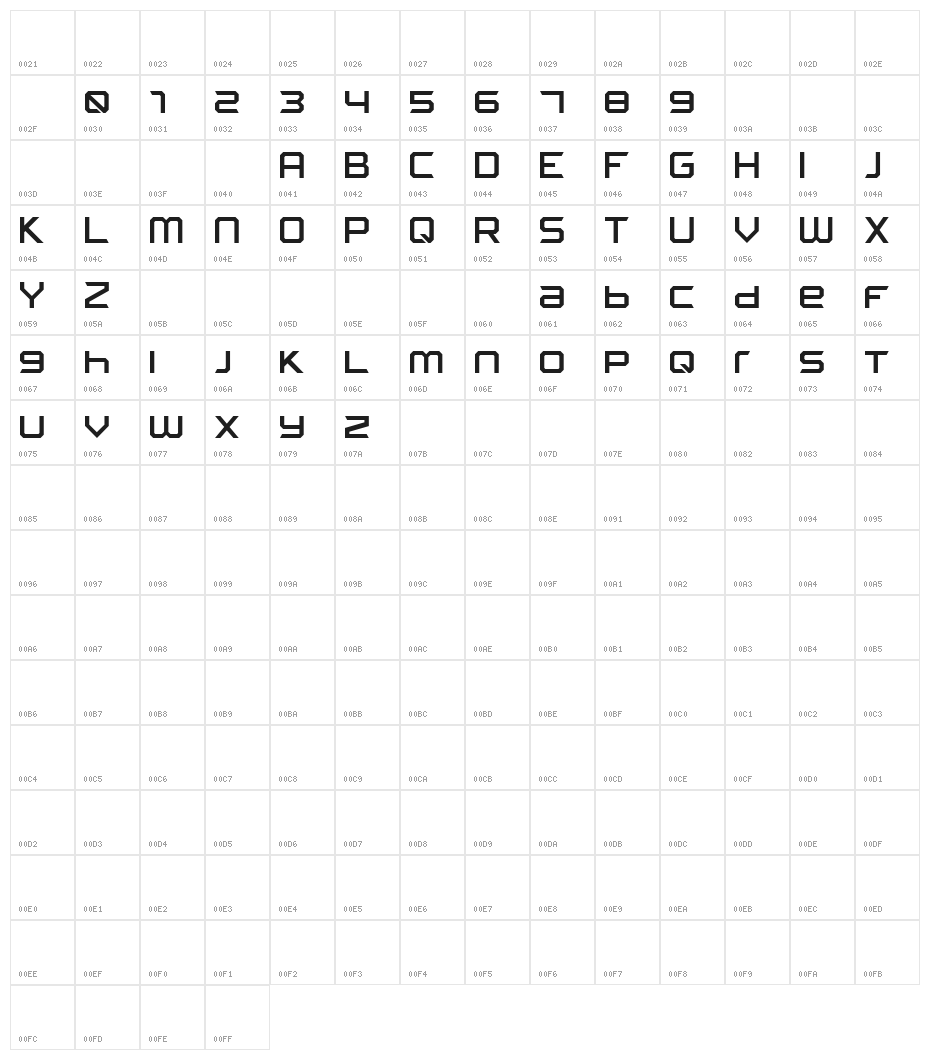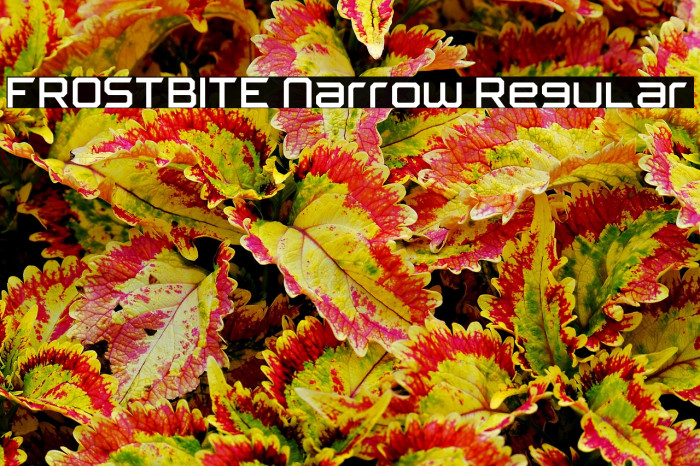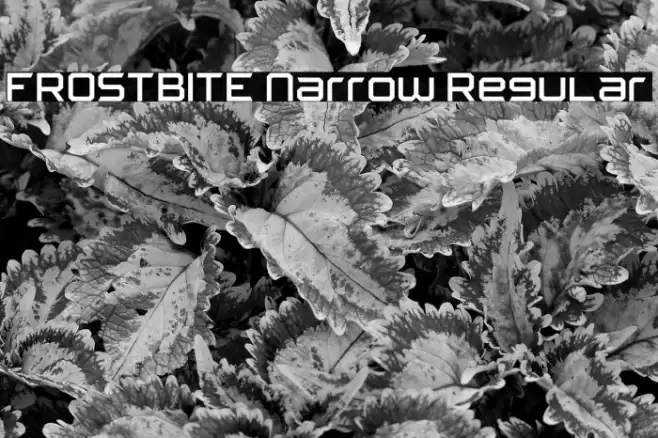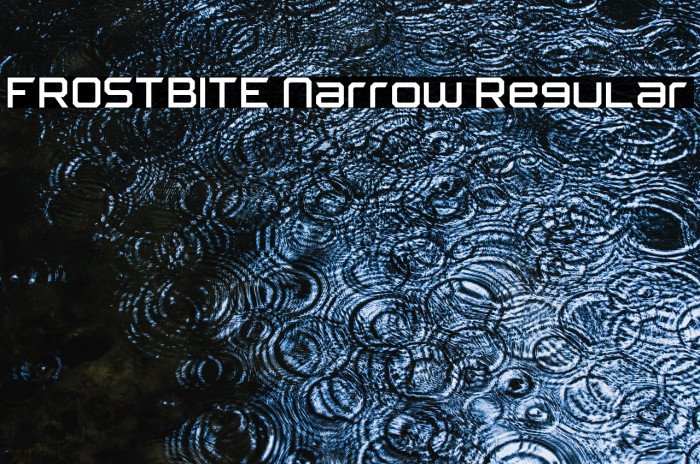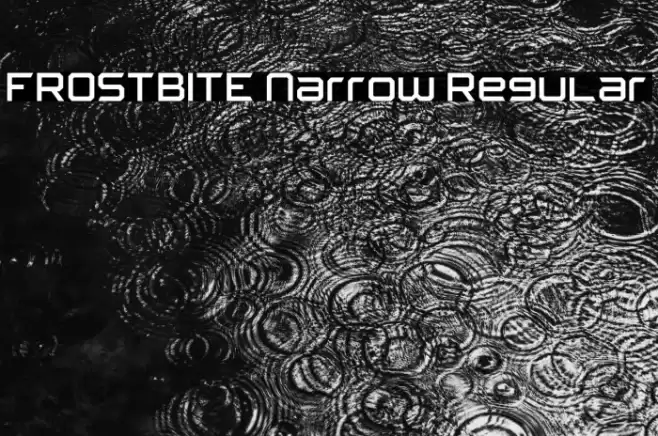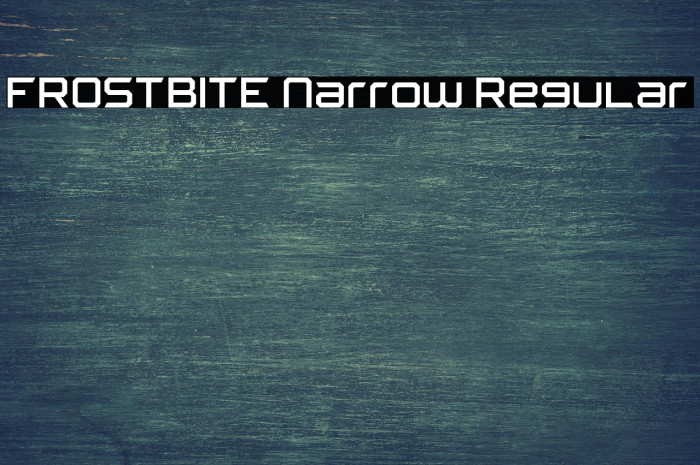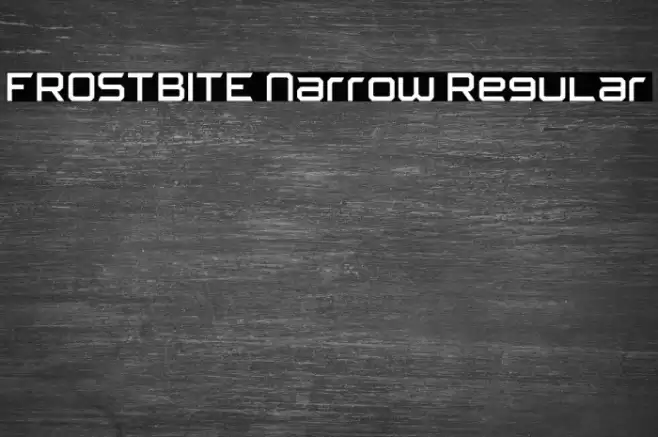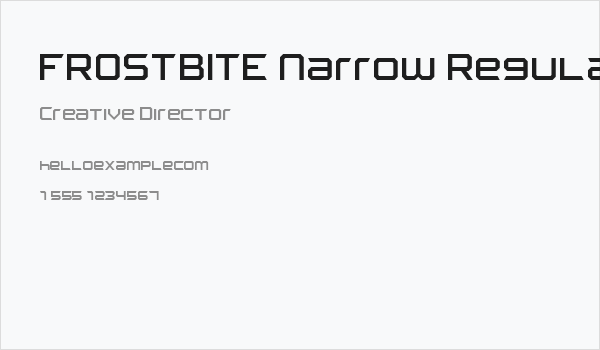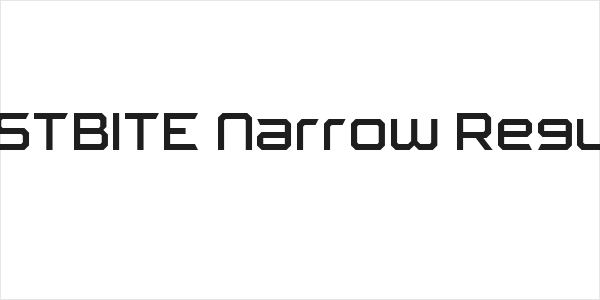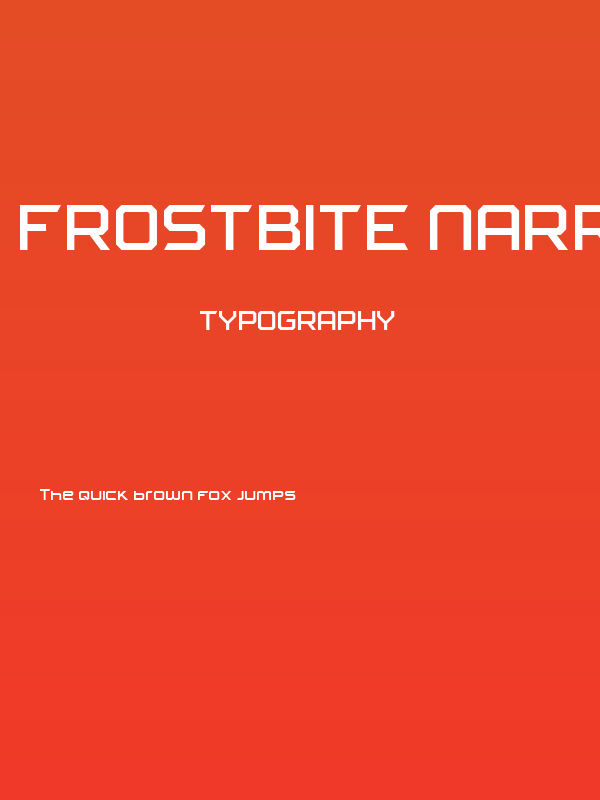
FROSTBITE Narrow Regular Font
FROSTBITE Narrow Regular Description
This font features a geometric and angular design, characterized by its sharp edges and futuristic appearance. The uppercase and lowercase letters maintain a consistent height, giving it a uniform look. The numerals and special characters follow the same angular style, making the font cohesive throughout. Its narrow structure and bold lines make it stand out, while the consistent stroke width adds to its modern appeal. The font's unique style is suitable for projects that require a contemporary and edgy feel.
| Proposed Projects | Ideal for technology branding, sci-fi themed designs, video game interfaces, and modern posters. |